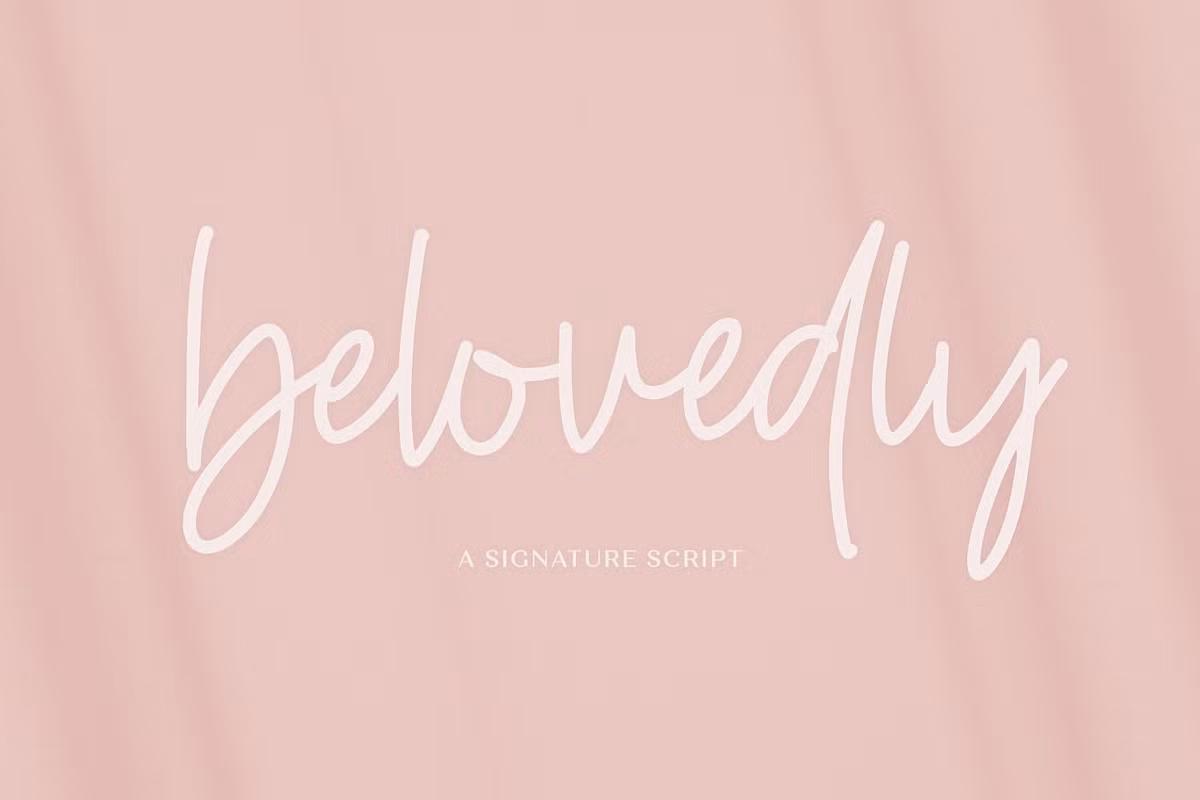
Belovedly Font - Handwriting Font Free Download is a charming and elegant handwritten typeface that adds a personal touch to your designs. With its smooth curves, natural flow, and delicate strokes, this font is perfect for wedding invitations, branding, social media graphics, greeting cards, and other creative projects that require a warm, handwritten aesthetic.
Belovedly brings an authentic, intimate feel to your typography, making it ideal for projects that need a sophisticated yet friendly touch. Whether you're designing a heartfelt message or a stylish logo, this font brings personality and grace to your work.